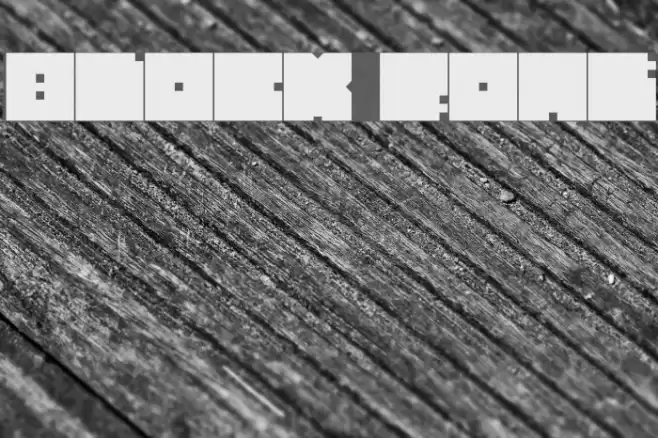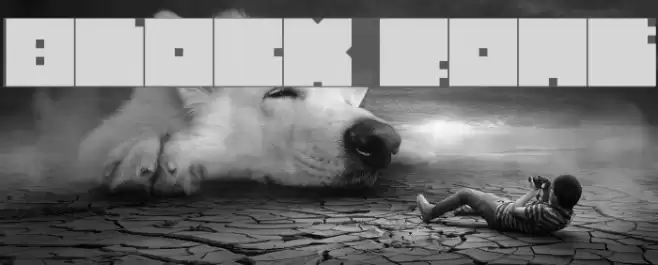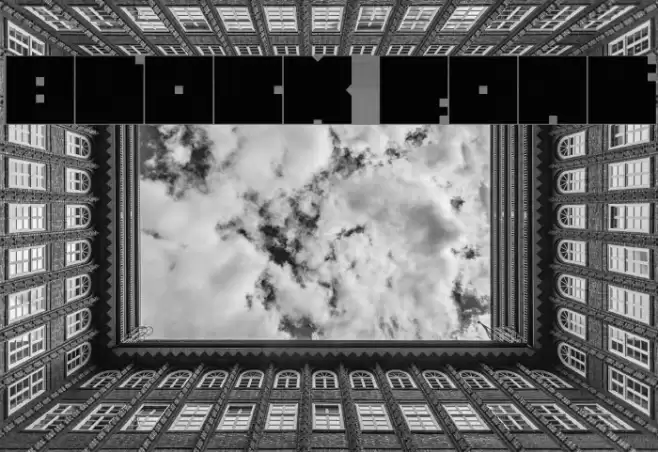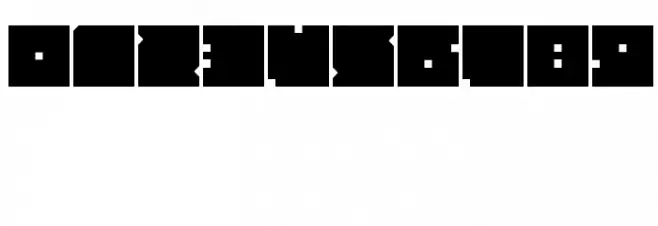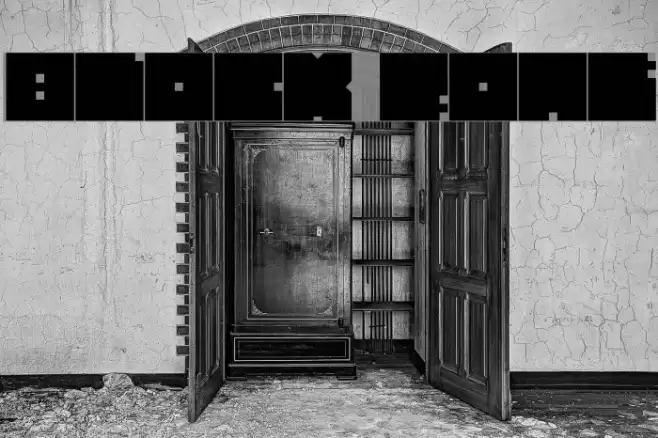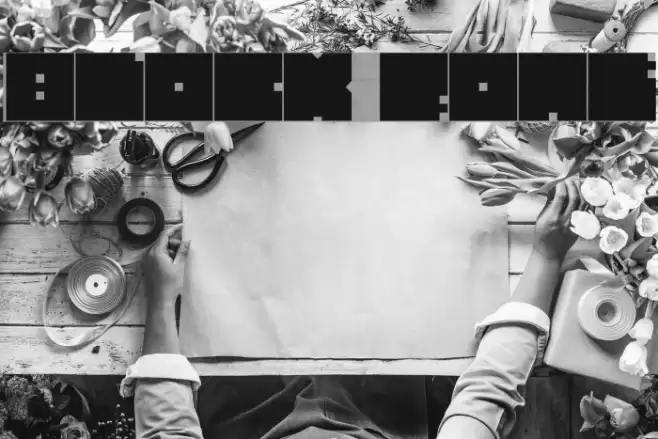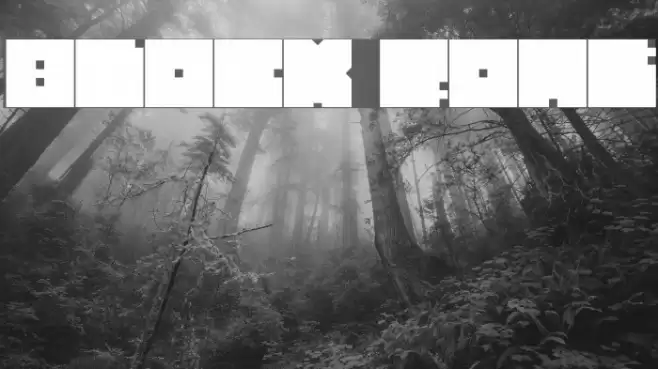
Block Font
Block Description
This font features a bold, geometric design with a strong emphasis on block shapes. Each character is constructed with a uniform thickness, creating a cohesive and striking appearance. The font's style is reminiscent of digital or pixelated text, making it ideal for modern and tech-oriented designs. Its boldness ensures high visibility and impact, making it suitable for attention-grabbing headlines or logos. The characters are evenly spaced, contributing to a clean and organized look. The font's unique style is both contemporary and versatile, offering a distinctive aesthetic for various creative projects.
A bold, geometric font with a modern, digital aesthetic from Kids fonts.
- Proposed Projects: Ideal for tech branding, digital artwork, video game design, and modern advertising.